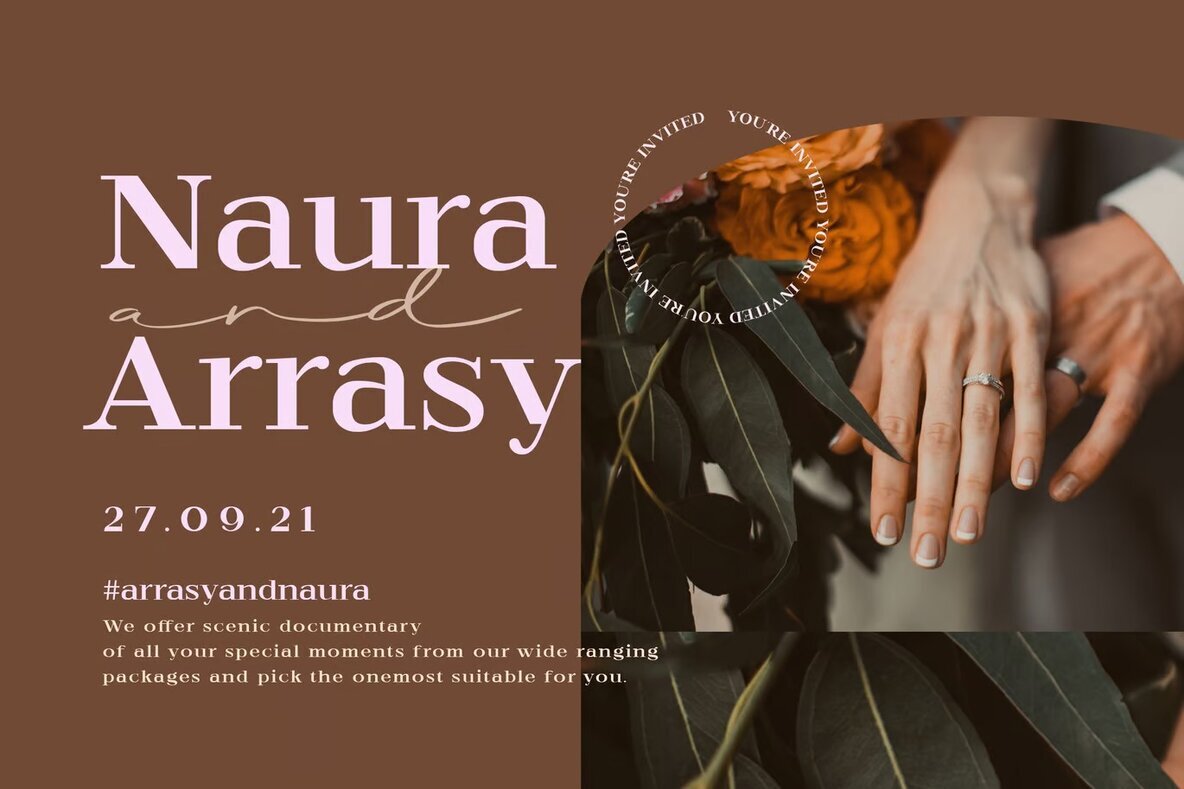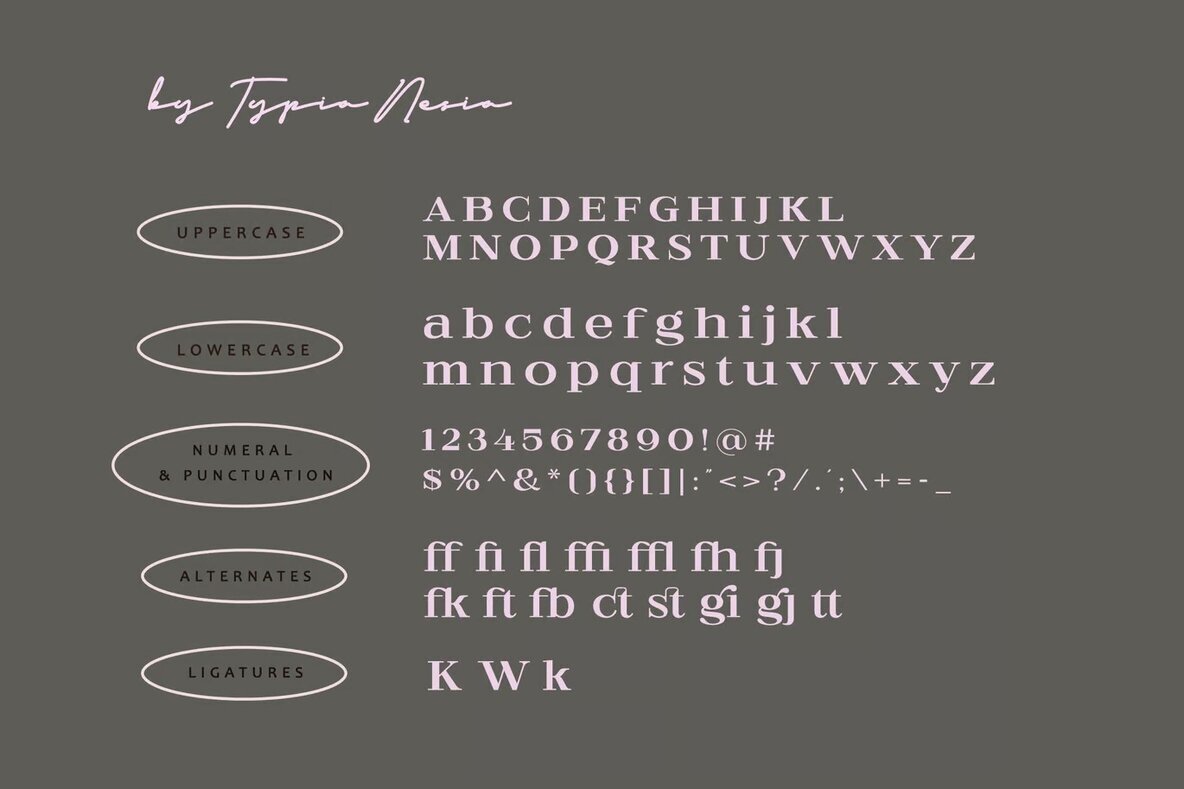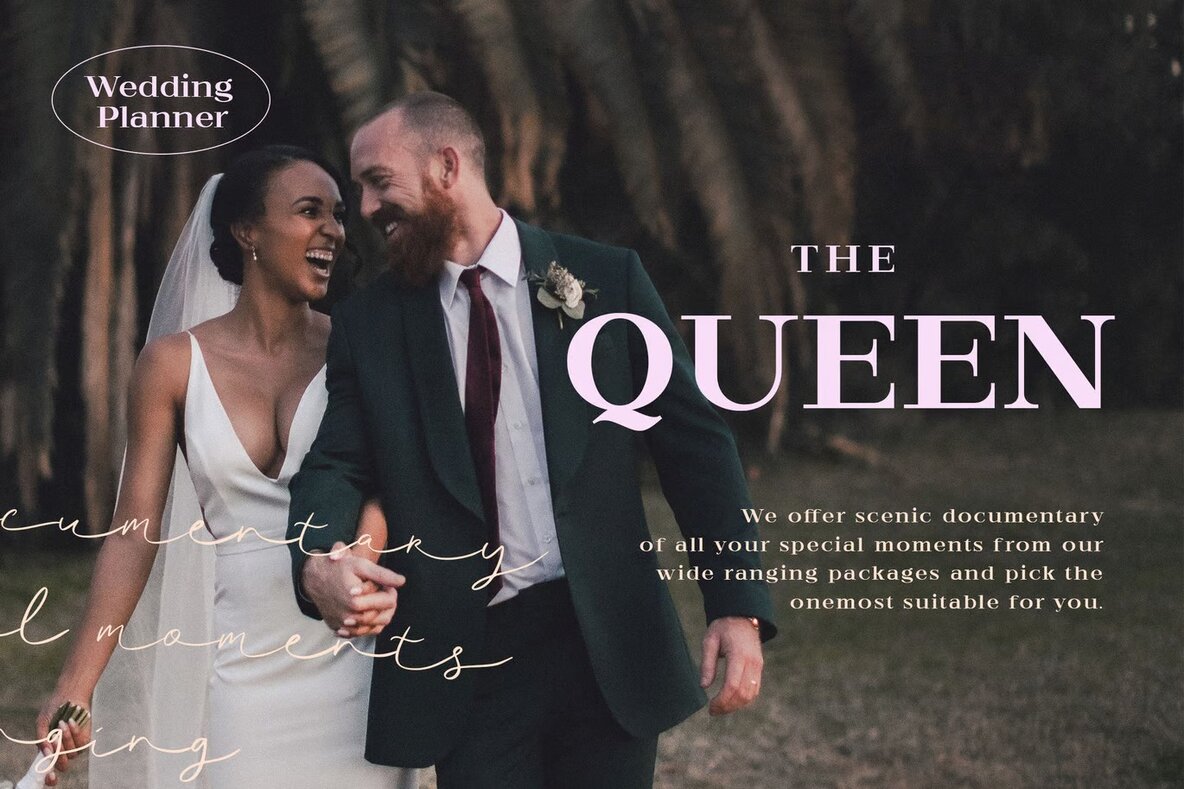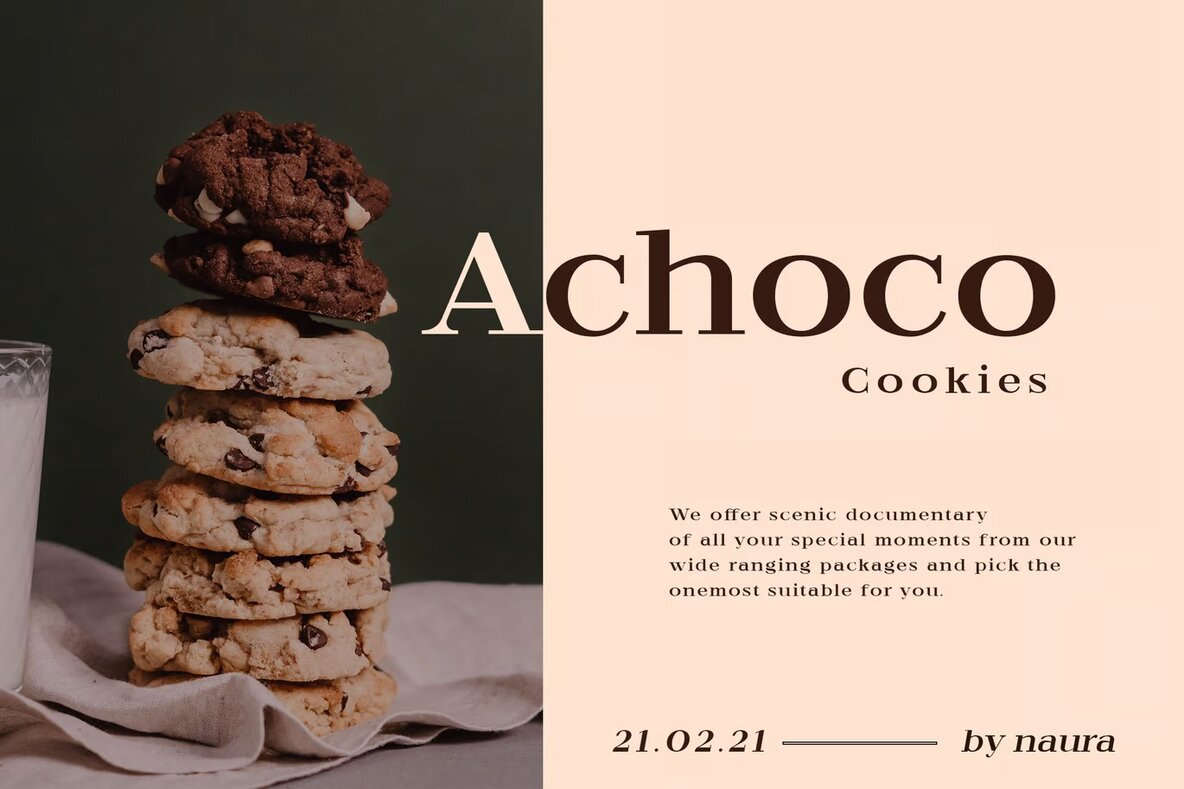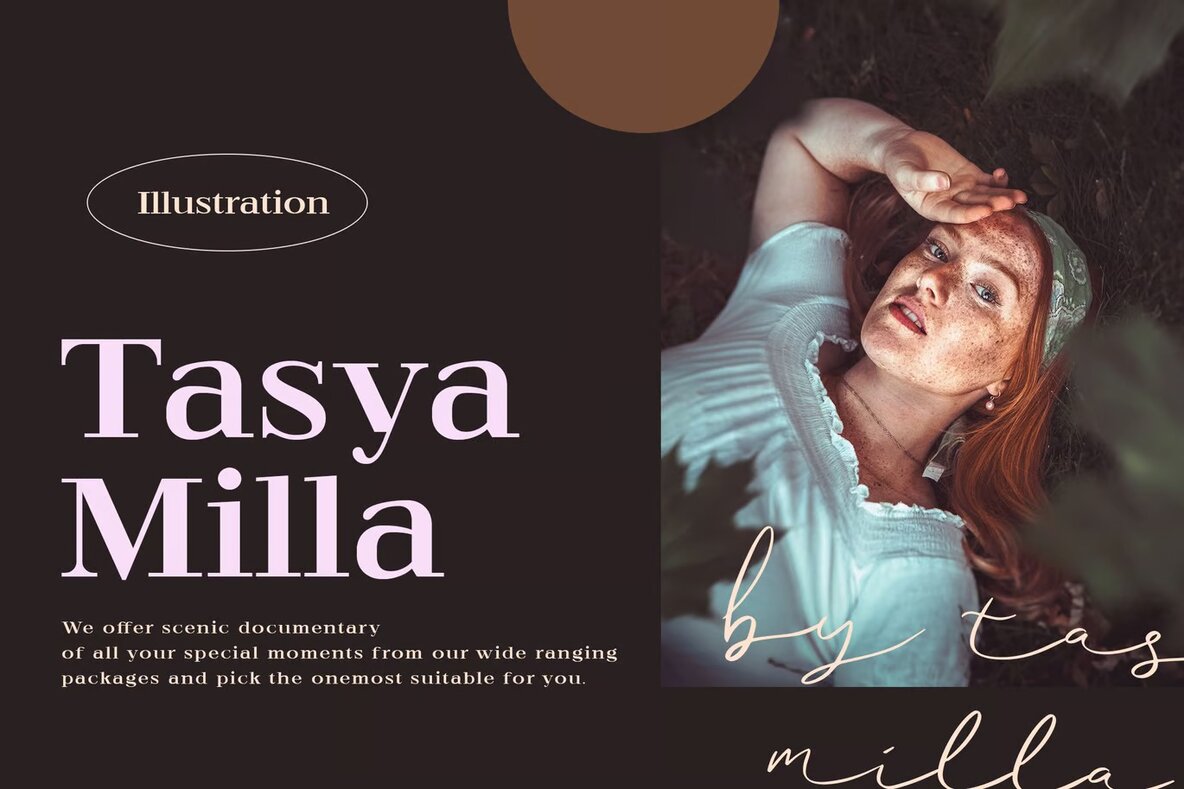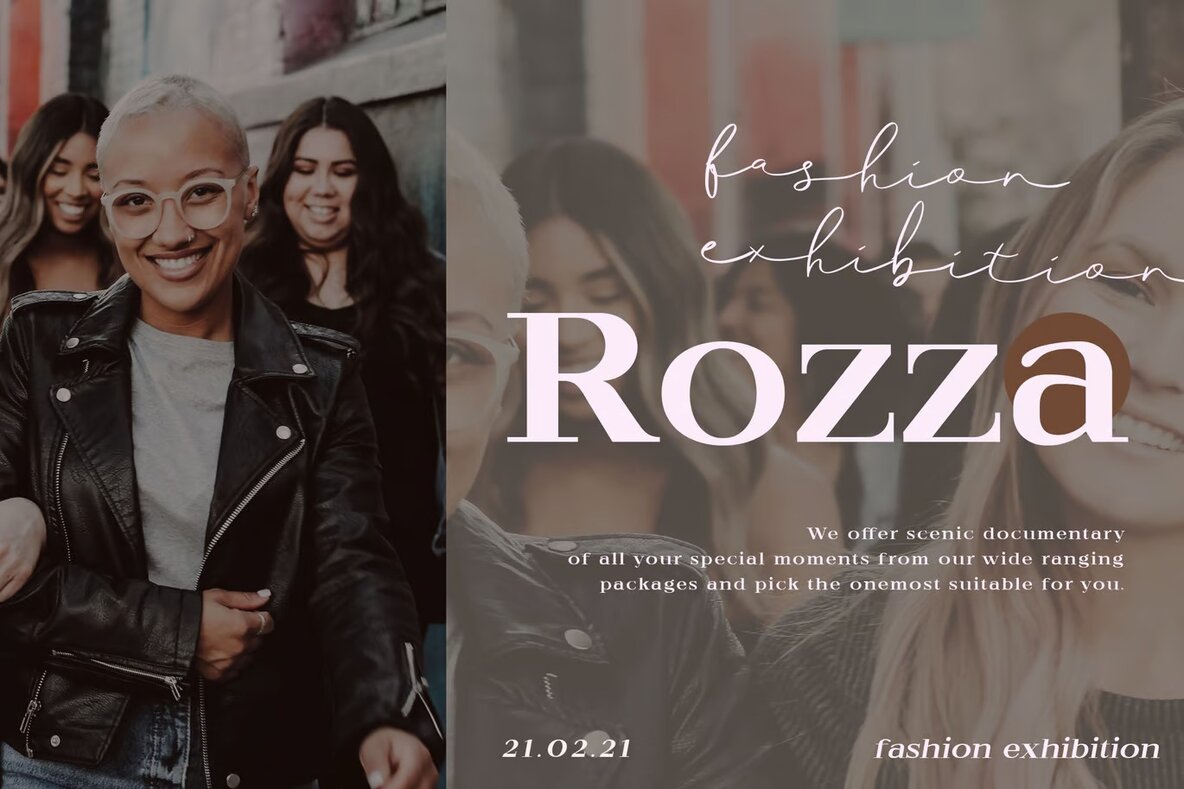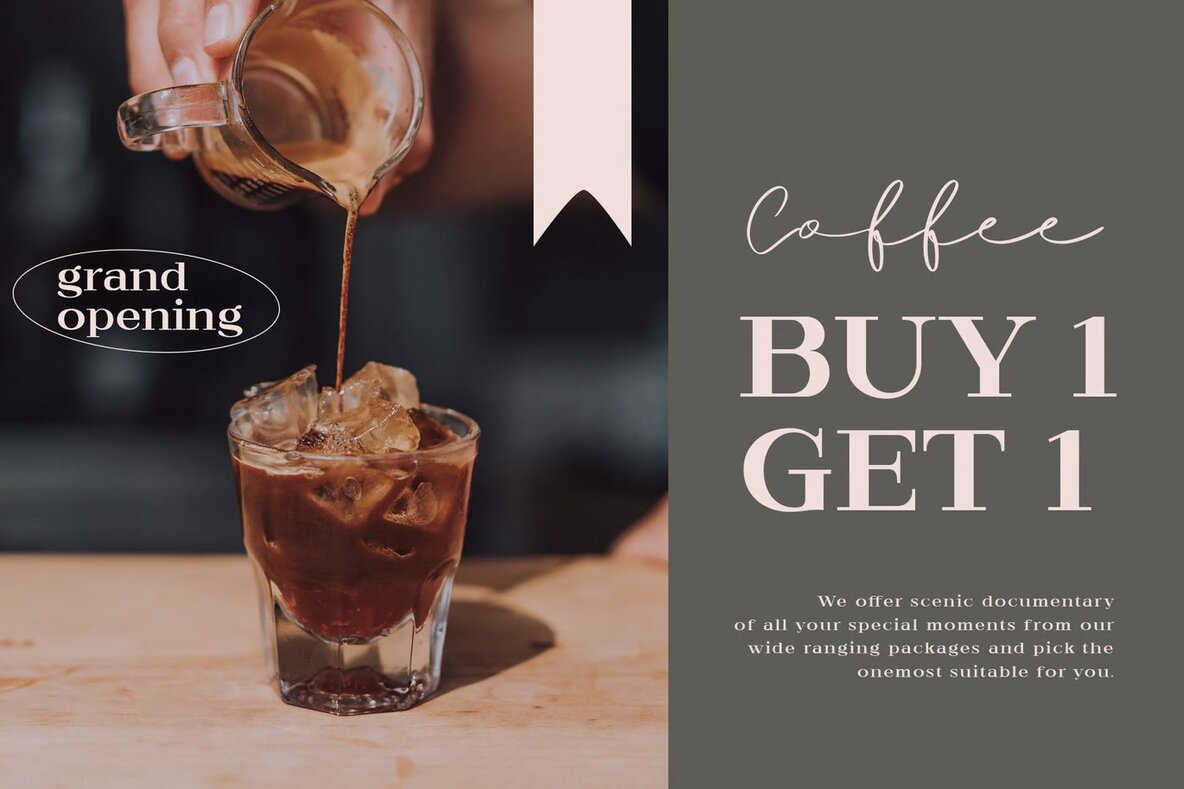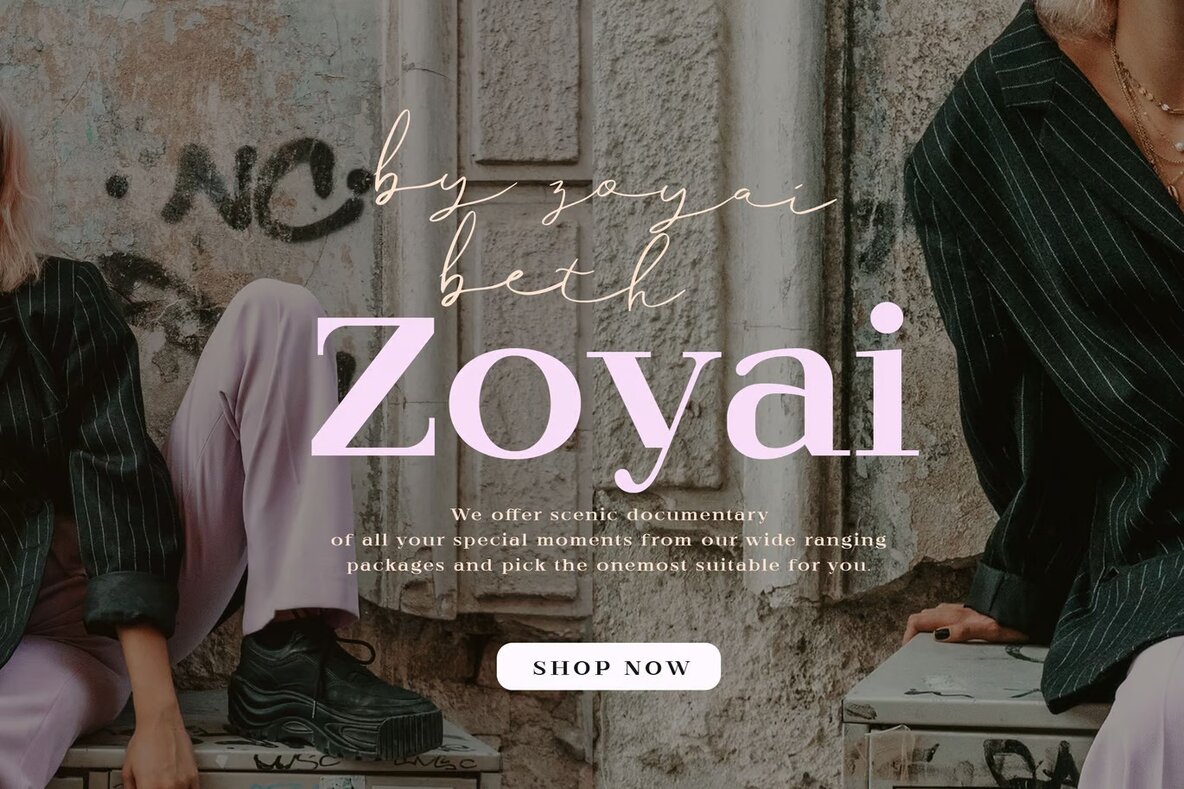
Melgizr Font
Melgizr Regular
Melgizr is an elegantly expanded serif font that adds a touch of sophistication to any project. Ideal for luxury logos, branding, and classy editorial designs, it effortlessly enhances a wide array of creative endeavors. Whether you're working on a women's magazine, cosmetic branding, or a fashion promotional, Melgizr's stylish and refined typeface makes it an excellent choice. The font suits projects needing a touch of class and modern flair, such as art gallery branding, boutique identities, and museum projects.
The versatile Melgizr font is also perfect for stationery design, blogs, and modern advertising campaigns. With its elegant charm, it complements card invitations, art quotes, and home décor. Suitable for book or cover titles, it gracefully underlines the essence of special events. Melgizr’s unique design ensures a prestigious appearance, making it an ideal choice for projects that require a refined but contemporary appearance.